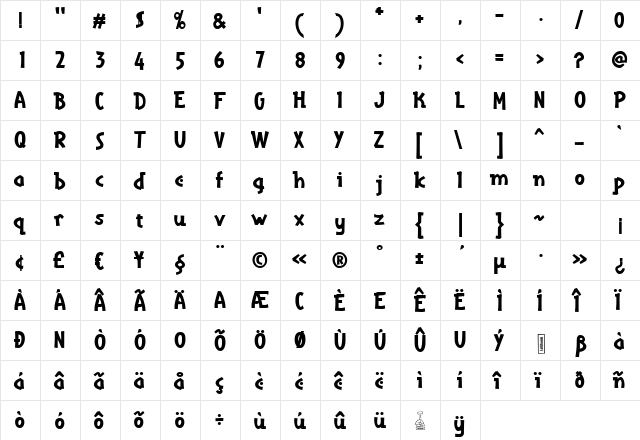
Tothepoint ExtraBold
Design Context for Tothepoint Typeface
Tothepoint is a composed and adaptable typeface that performs quietly and consistently across a wide range of design contexts. Its bold stroke weight gives it real presence on the page.